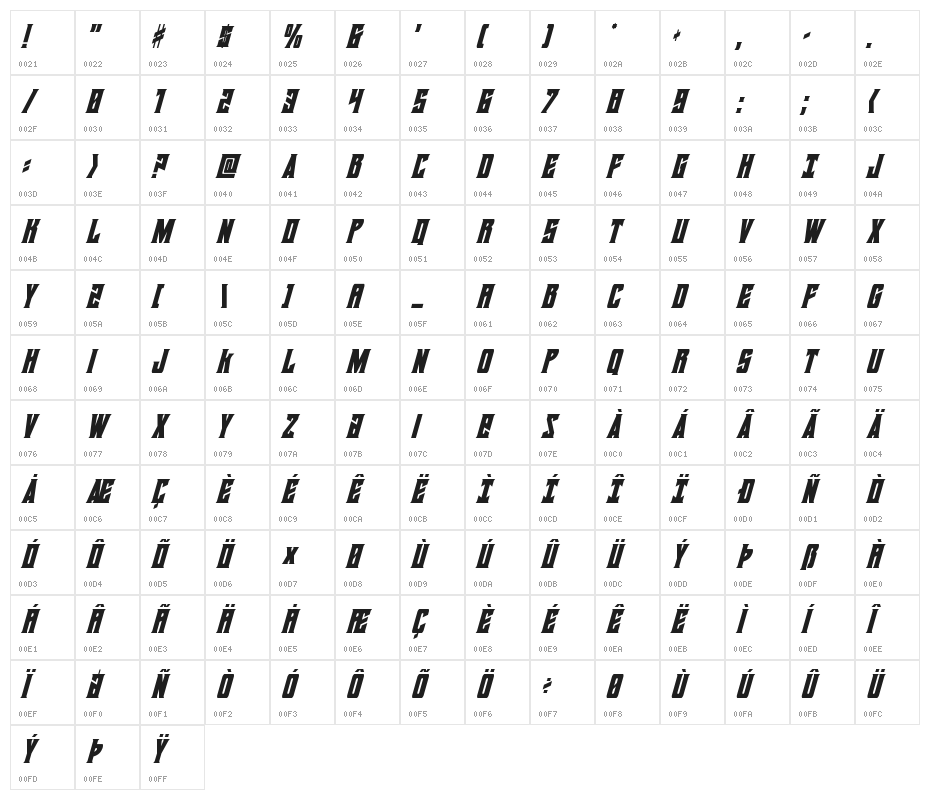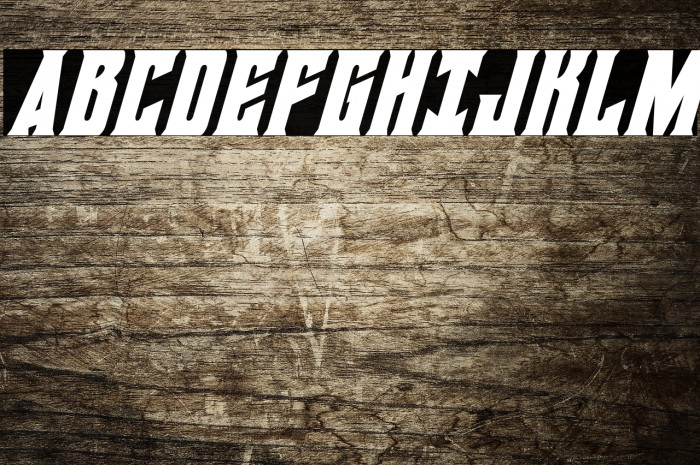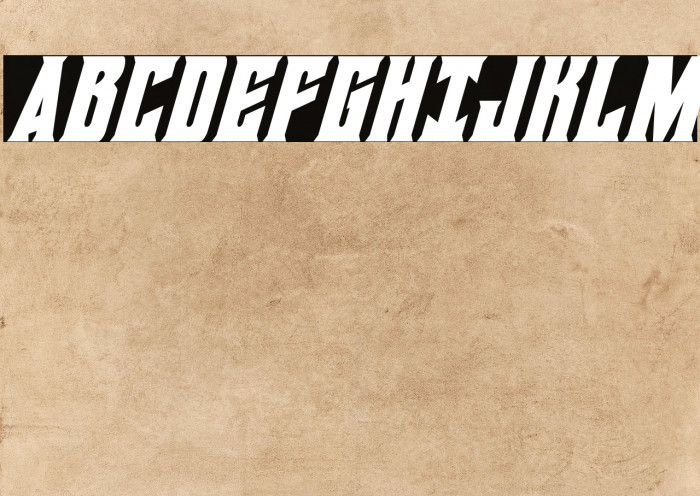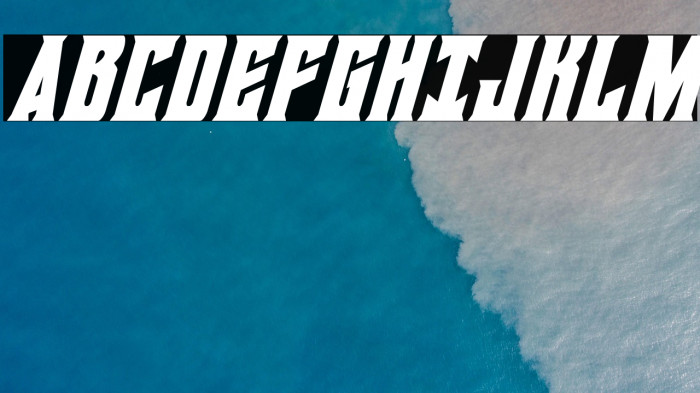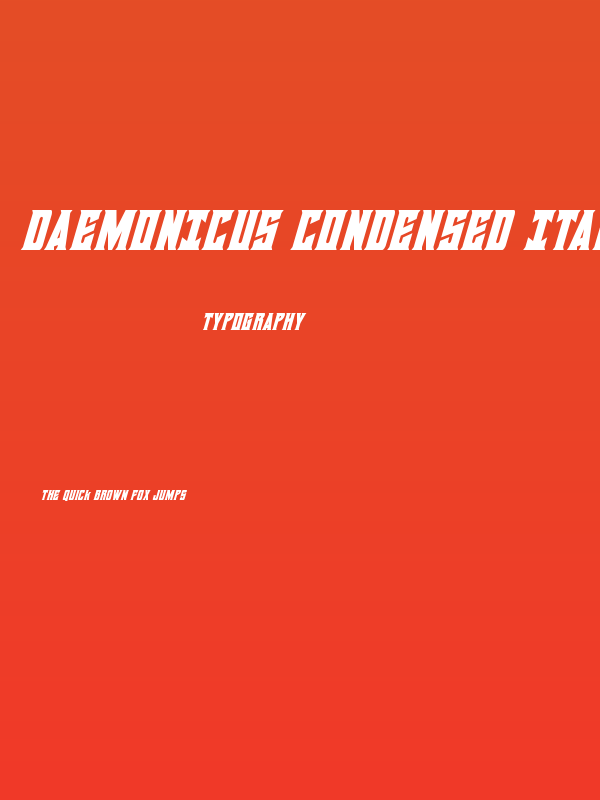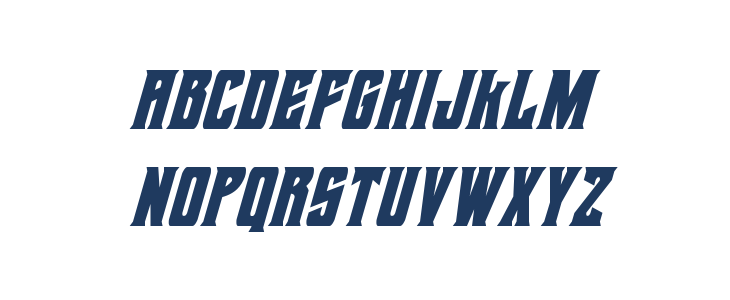
Daemonicus Condensed Italic Font
Daemonicus Condensed Italic Description
This font features a bold and dynamic design with a condensed and italicized style. The characters are sharply angled, creating a sense of movement and energy. The uppercase and lowercase letters maintain a consistent slant, enhancing the italic effect. The numbers and special characters follow the same design principles, ensuring uniformity across the typeface. The strokes are thick, contributing to a high contrast between the filled areas and the negative space. This font is ideal for making a strong visual impact.